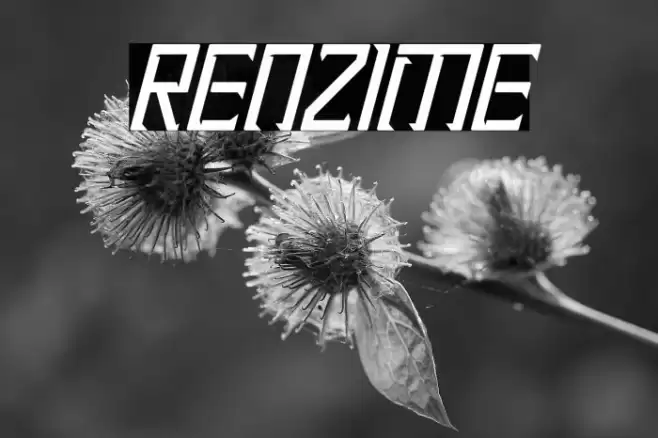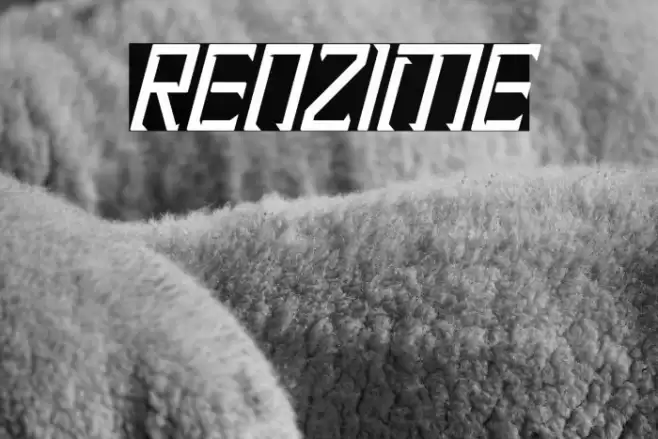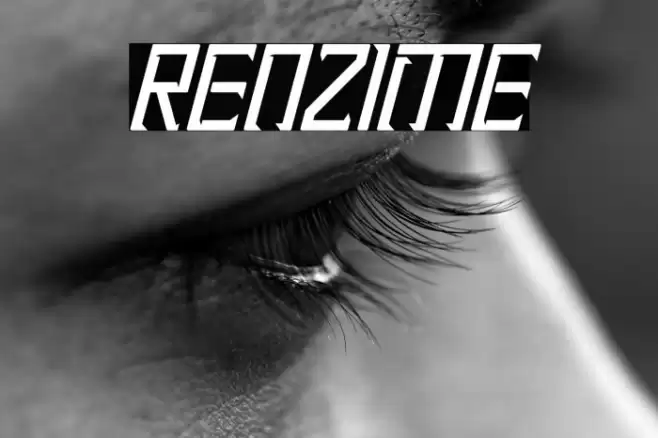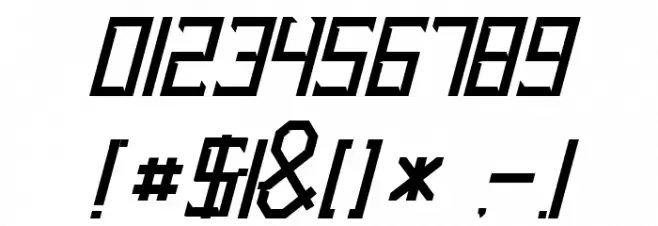
Renzime Font
Renzime Description
This font features a bold, angular design with a futuristic and dynamic appearance. The characters are constructed with sharp edges and diagonal lines, giving it a sense of motion and energy. The uppercase and lowercase letters maintain a consistent style, with a slight slant that adds to the forward-moving aesthetic. Numbers and special characters are designed to match the overall geometric theme, ensuring uniformity across all glyphs. The font's unique style makes it stand out, suitable for projects that require a modern and edgy look.
A bold, angular font with a futuristic and dynamic design from Regular fonts.